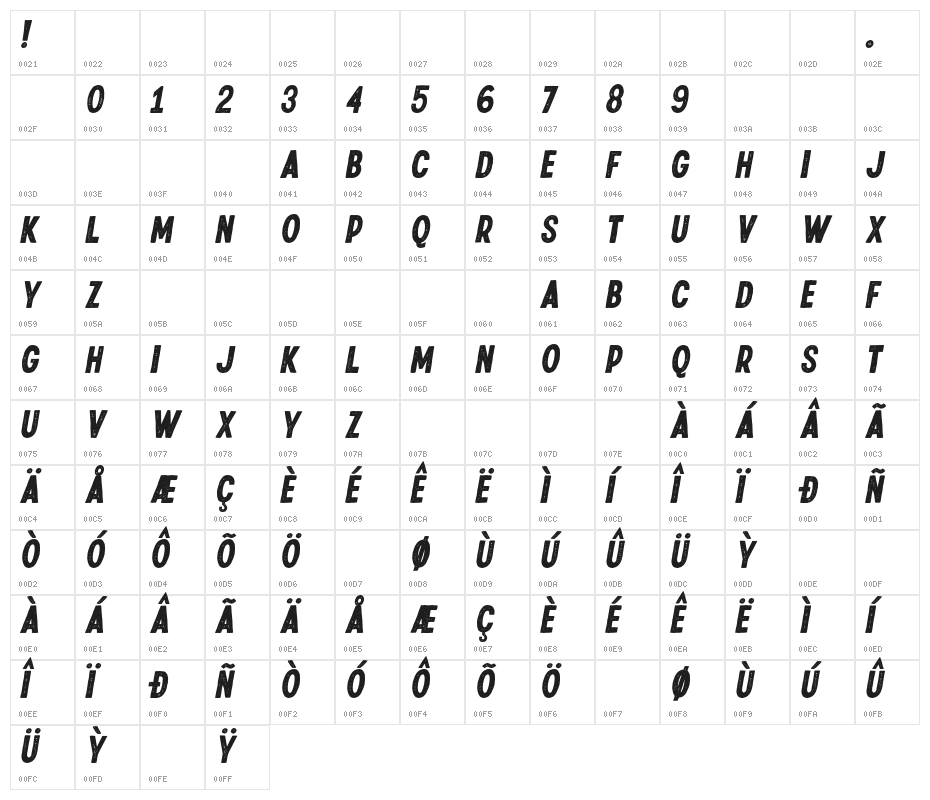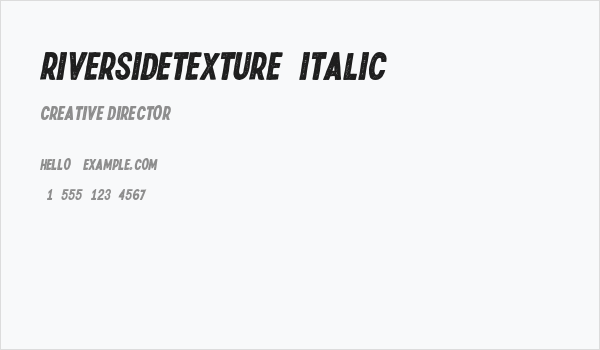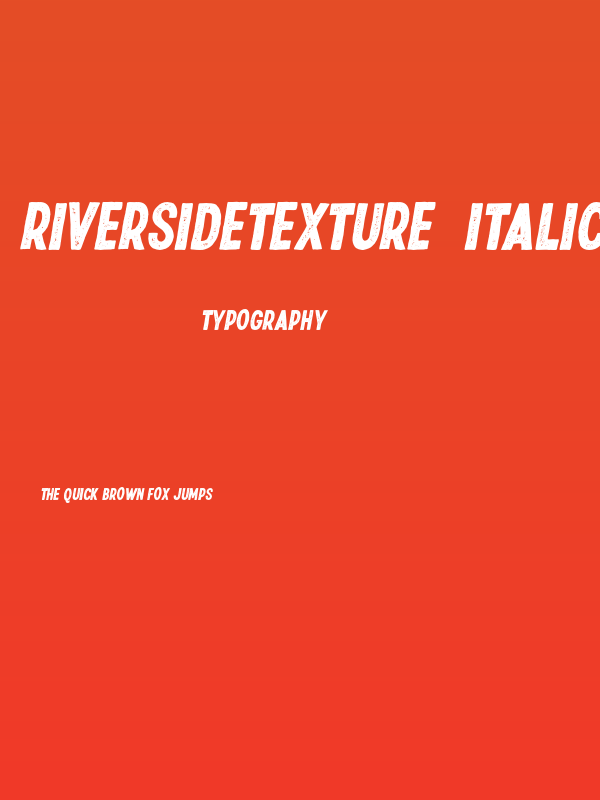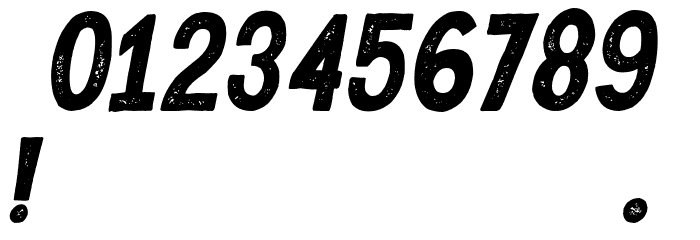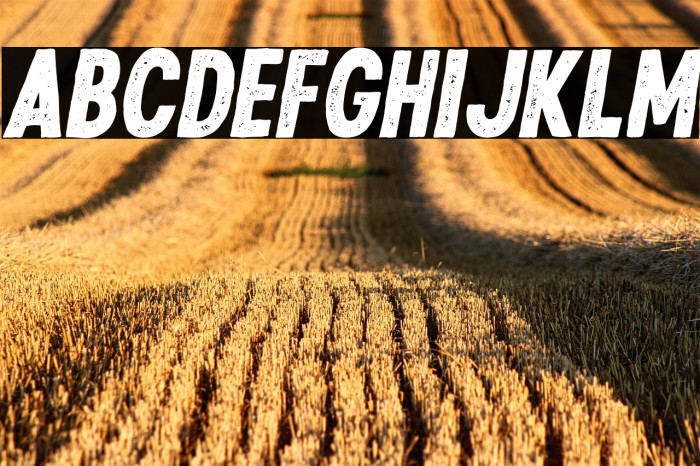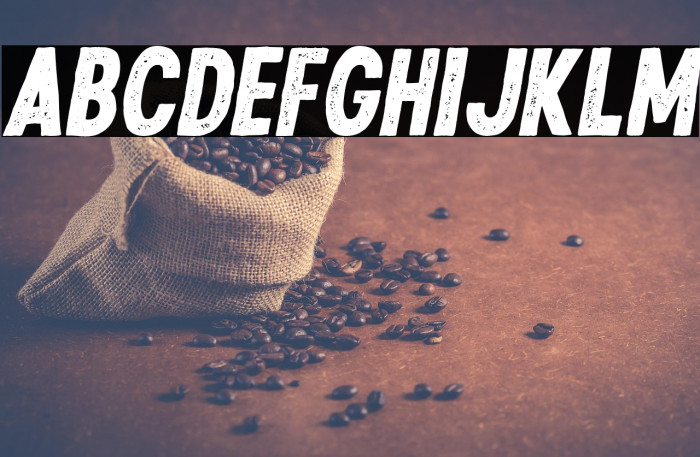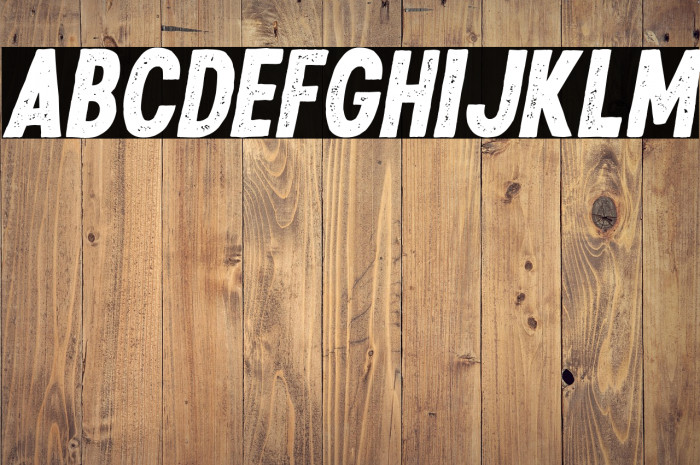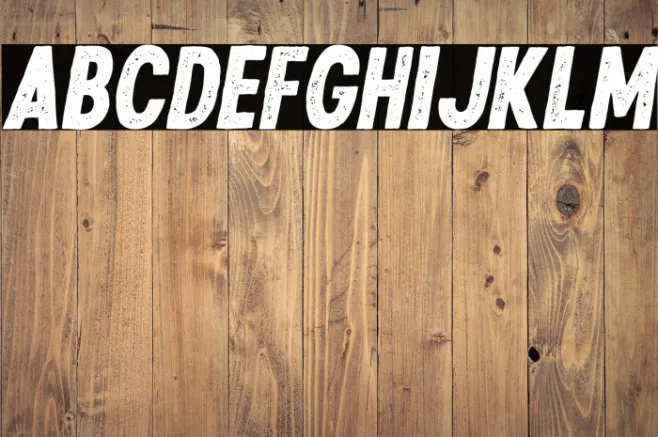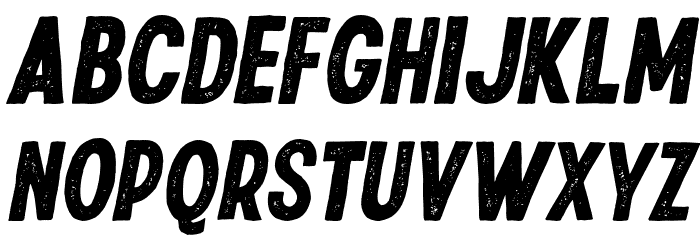
RiversideTexture-Italic Font
RiversideTexture-Italic Description
This font features a bold, textured appearance with a distinct italic slant, giving it a dynamic and energetic feel. The characters are robust and impactful, with a distressed texture that adds a vintage or grunge aesthetic. The uppercase and lowercase letters maintain a consistent style, while the numbers and punctuation marks complement the overall design. The texture within each character provides a sense of depth and movement, making it suitable for eye-catching designs.
| Proposed Projects | Ideal for posters, branding, album covers, and any project requiring a bold, vintage aesthetic. |